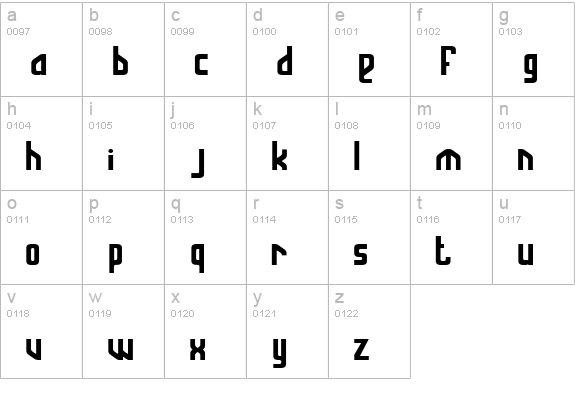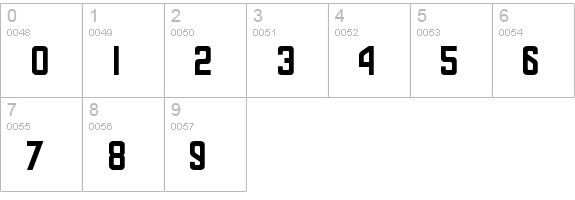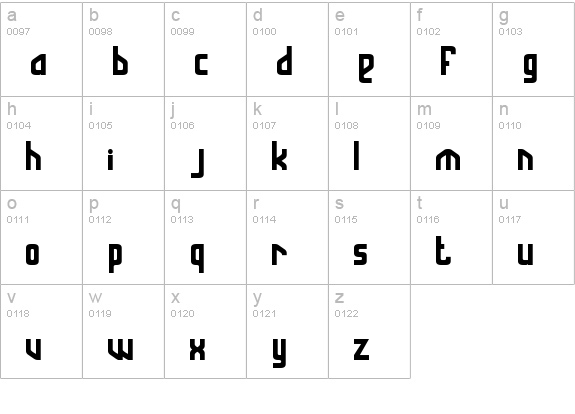
RussianQuality Normal is the standard, neutral variant in the RussianQuality typeface family \xE2\x80\x94 well suited to general body text, paragraphs, and standard typographic work.
RussianQuality Normal font is a versatile and stylish typeface that exudes elegance and sophistication. With its clean lines and modern design, this font is perfect for a wide range of projects, from branding to editorial design. The sleek and professional look of RussianQuality Normal font makes it a great choice for any design that needs a touch of class. The best part? RussianQuality Normal font is available for free download at FontsMarket.com. This means you can easily add this beautiful font to your collection without any cost. Whether you're a professional designer or just someone who loves typography, RussianQuality Normal font is a must-have addition to your font library. Download it today and elevate your design projects with this stunning typeface.